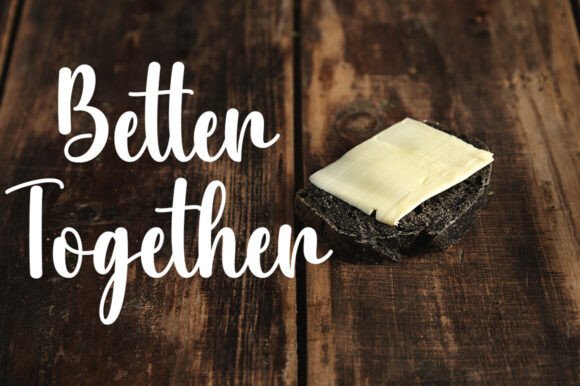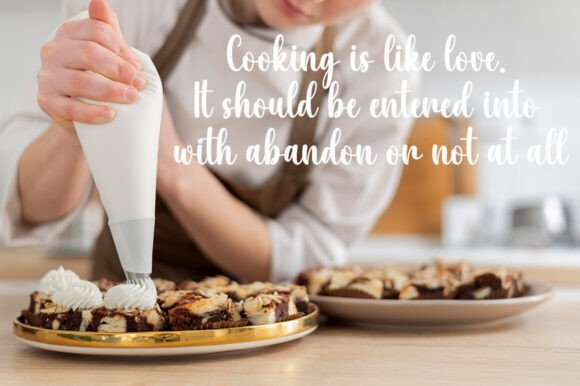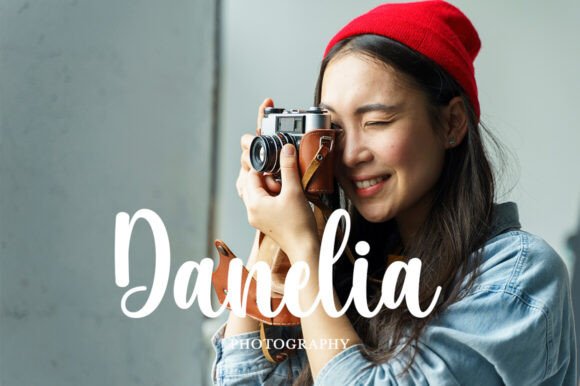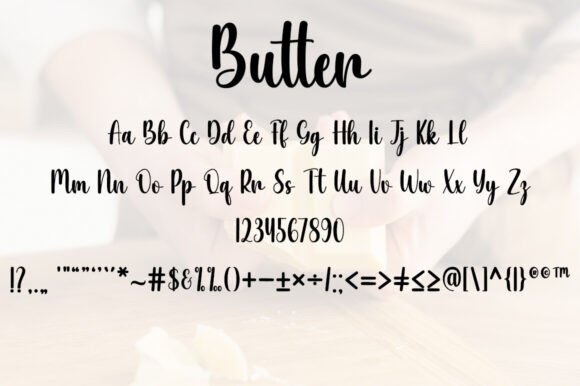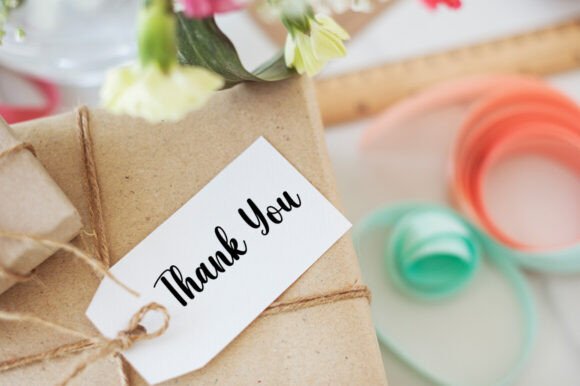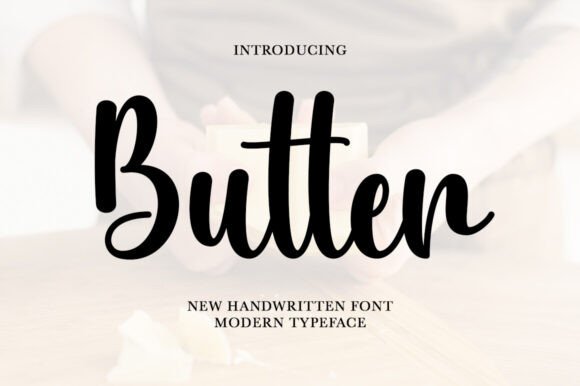
The Sweet Spot: Discovering the Charm of Butter Font
I’ll never forget the time I was working on a wedding invitation project, and my client asked for a font that was “elegant, yet playful.” I scoured the internet, tried out dozens of fonts, but nothing seemed quite right. That was until I stumbled upon Butter Font. Its beautiful, handwritten curves and natural flow instantly won me over. It was like finding the perfect ingredient to elevate my design to the next level.
A First Impression: What Makes Butter Font Special
Butter Font is a stunning handwritten font that exudes a sense of elegance and sophistication. Its natural, flowing style makes it perfect for adding a personal touch to various design projects, from invitations and logos to social media posts.
An Honest Review: The Good and the Quirky
Here’s what I love about Butter Font:
• ✨ Elegant and sophisticated, yet approachable and friendly
• ✅ Beautifully crafted with attention to detail
• 💫 Perfect for a variety of design projects, from formal to informal
• 📝 Supports OpenType features, allowing for advanced typography
And here are a few quirks to keep in mind:
• 🤔 Some users may find the font a bit too script-like for certain projects
• ⚠️ Limited availability of certain glyphs and stylistic alternates
The Story Behind Butter Font
Butter Font was designed with the intention of creating a beautiful, handwritten font that captures the essence of elegant cursive writing. The designer aimed to create a font that would be perfect for a variety of design projects, from formal invitations to social media posts.
Font Name Butter Font
Author DN Creative
What is the best way to use Butter Font? Butter Font is perfect for adding a personal touch to invitations, logos, social media posts, and more. Experiment with different OpenType features and glyphs to get the most out of the font.
Is Butter Font suitable for body text? While Butter Font is beautiful, it’s best suited for headlines and titles. For body text, consider a more legible font.